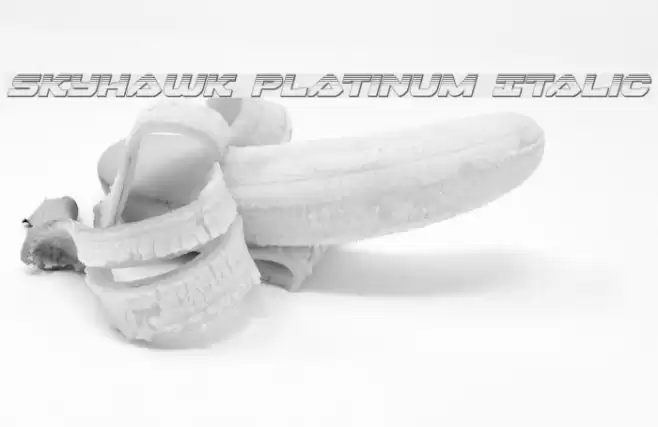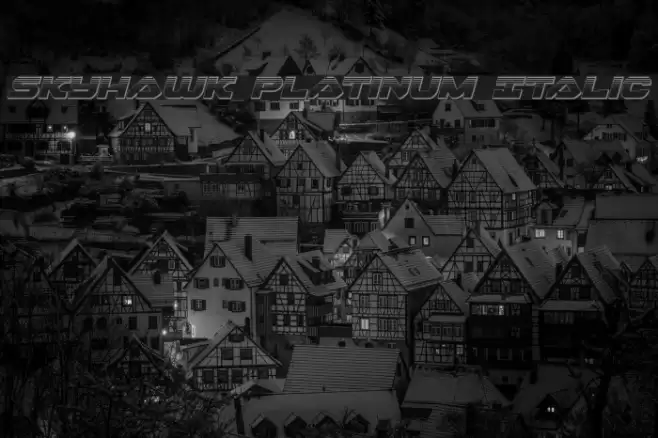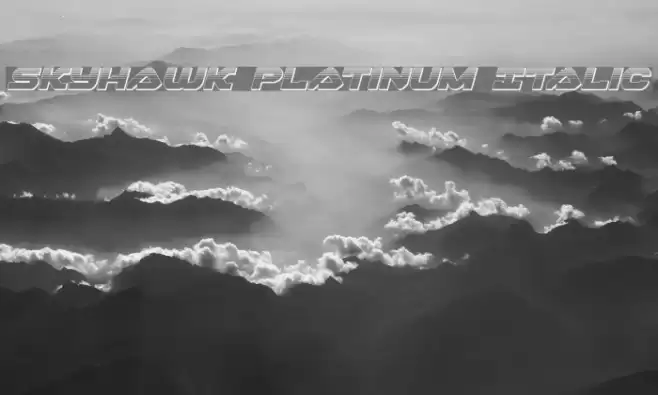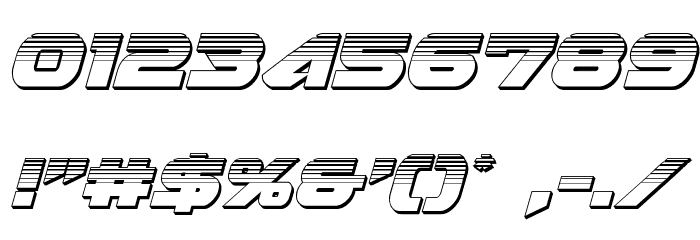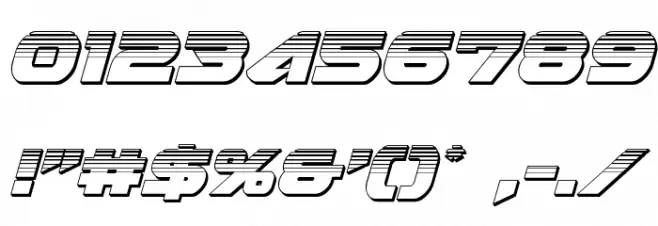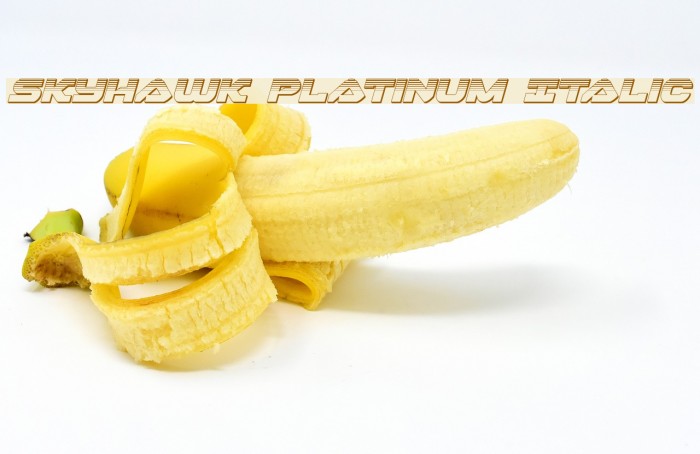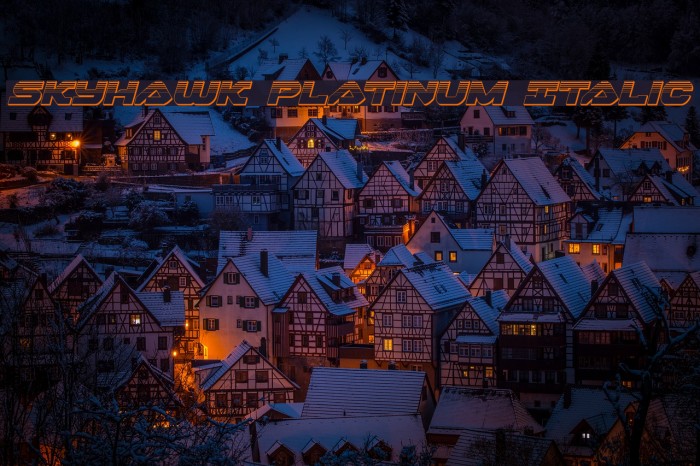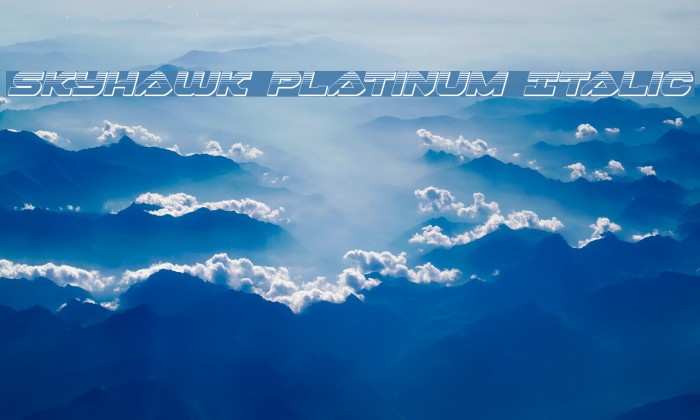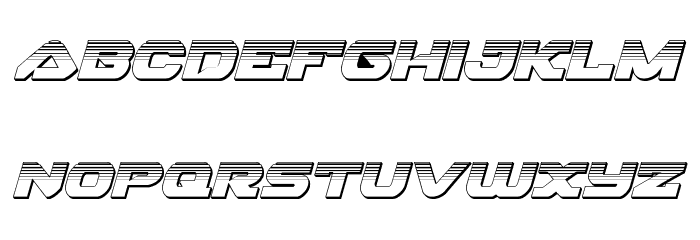
Skyhawk Platinum Italic Font
Skyhawk Platinum Italic Description
This font features a bold, futuristic design with a three-dimensional effect created by layered outlines. The characters are italicized, giving a sense of motion and speed. The geometric shapes and sharp angles contribute to a modern, tech-inspired aesthetic. The uppercase and lowercase letters maintain a consistent style, while the numerals and special characters complement the overall design. This font is highly stylized, making it suitable for attention-grabbing headlines or branding that requires a dynamic and contemporary look.
A bold, italicized font with a futuristic, three-dimensional design from Uncategorized fonts.
- Proposed Projects: Ideal for technology branding, sci-fi themed posters, video game titles, and modern advertising campaigns.